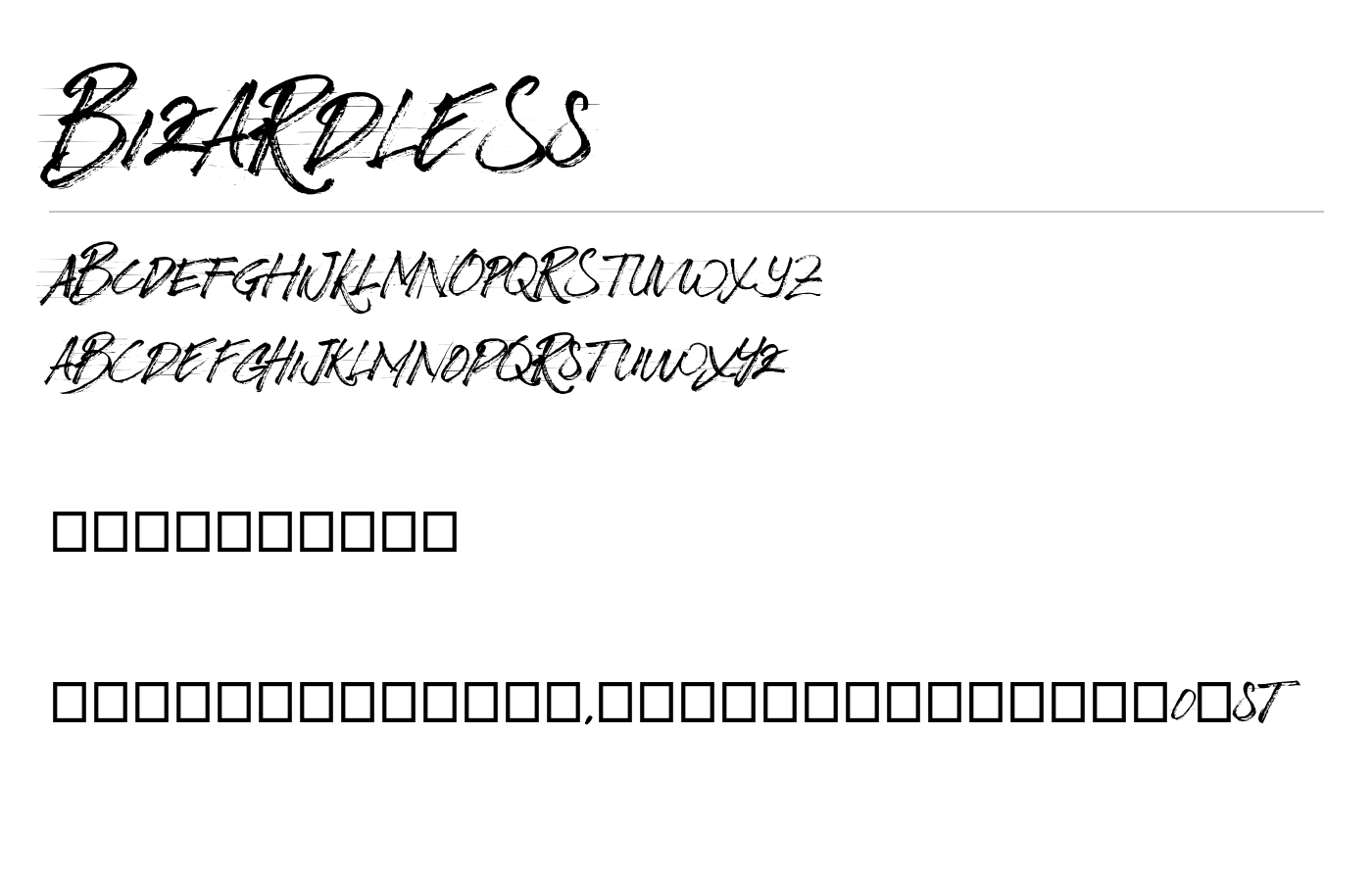
BizardleSs is an expressive, handwritten script font with a rough, brushstroke texture that adds a dynamic and artistic feel. Its tall, narrow letterforms with varying stroke weights create a casual yet edgy vibe, making it ideal for creative projects needing a bold, personal touch. This font works great for logos, posters, and branding where an energetic, handcrafted look is desired.
BizardleSs Font
About BizardleSs Font